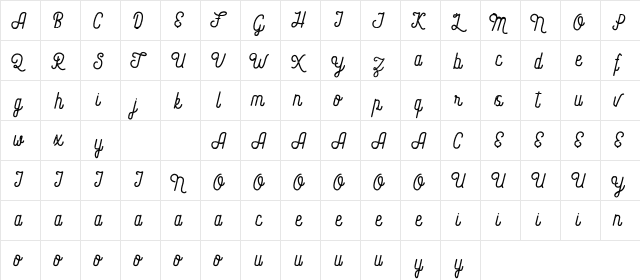
Loveolline Rough F Regular
| Designer | Laire Banyu Sandi Pawenang |
Design Context for Loveolline Rough F Typeface
Loveolline Rough F embraces imperfection — its rough, textured character adds raw authenticity to designs that want to feel lived-in and unconventional.
Suited to punk-influenced zines, underground music branding, streetwear, and raw, anti-corporate design.
Pro Tip: Pair Loveolline Rough F with intentionally raw or lo-fi design elements. Fighting against it with overly polished surroundings will undermine its personality.